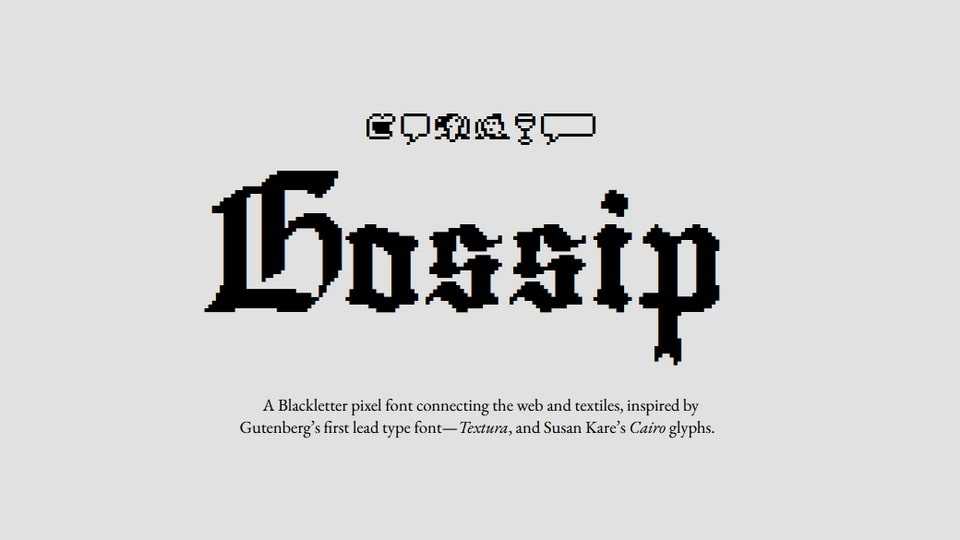
Download Gossip font, a blackletter pixel typeface connecting the web and textiles, inspired by Gutenberg’s first lead type font—Textura, and Susan Kare’s Cairo glyphs.
Designer: Deborah Khodanovich